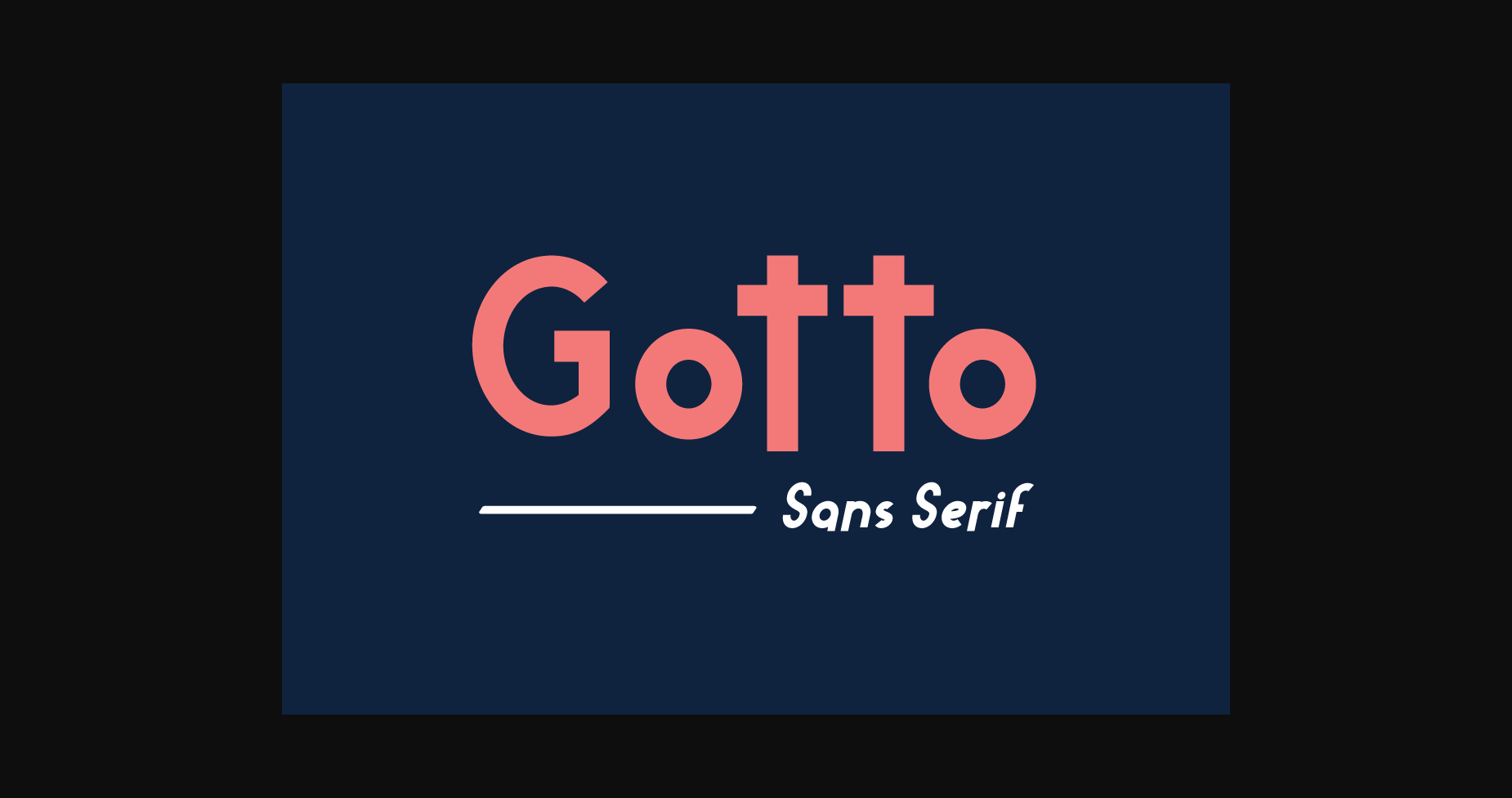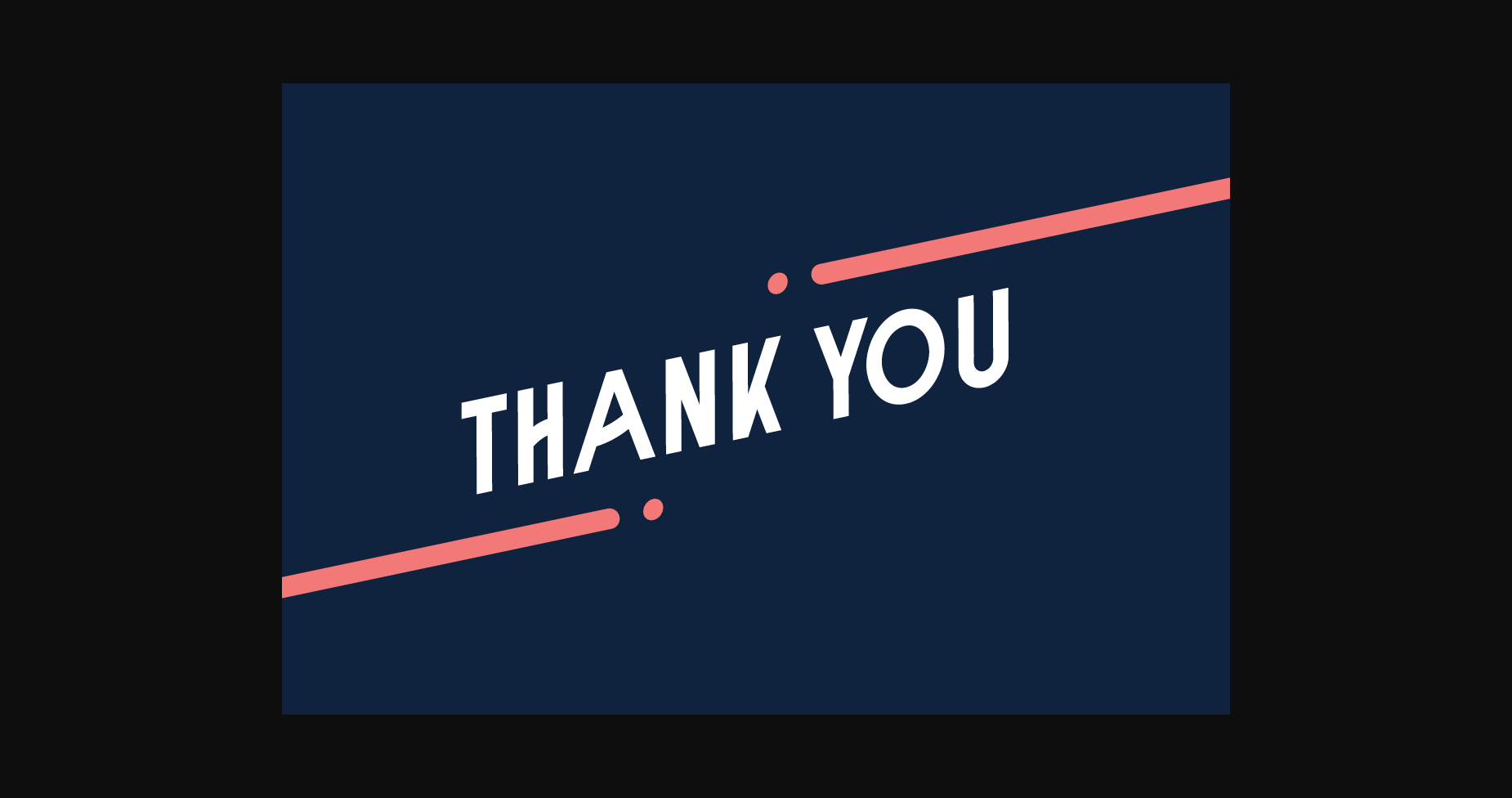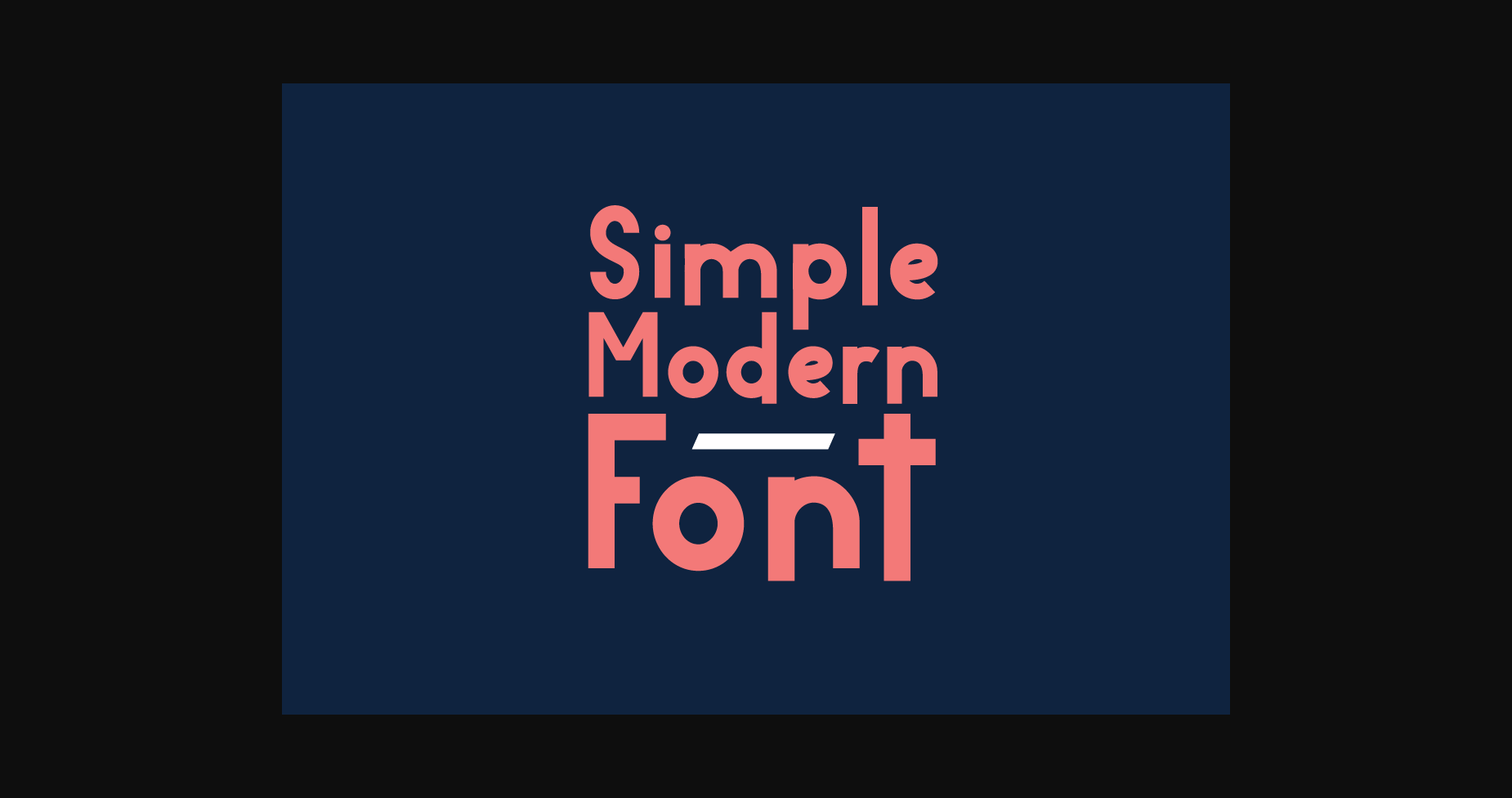
About Gotto Font
Gotto is a modern sans-serif font that exudes simplicity and elegance. Its clean lines and minimalistic design make it perfect for a variety of applications, from headlines to body text. With its balanced proportions and geometric shapes, Gotto is both timeless and contemporary, making it a versatile choice for any design project.